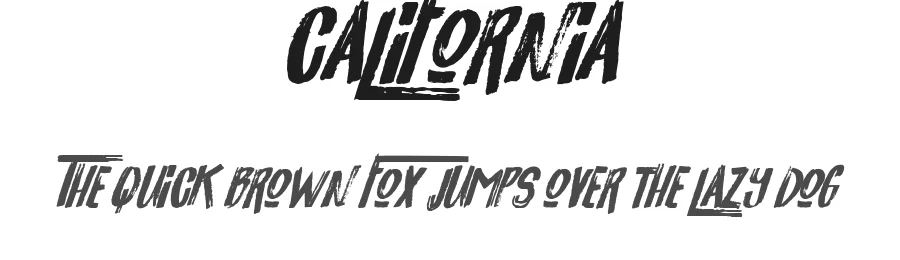
About Feel the universe Font
| Designer | junkohanhero |
Feel the universe Font is a script font that shines as a display or heading face. Pair it with a clean sans-serif or serif font for body text β the contrast creates a clear hierarchy while the two styles stay balanced and easy to read.